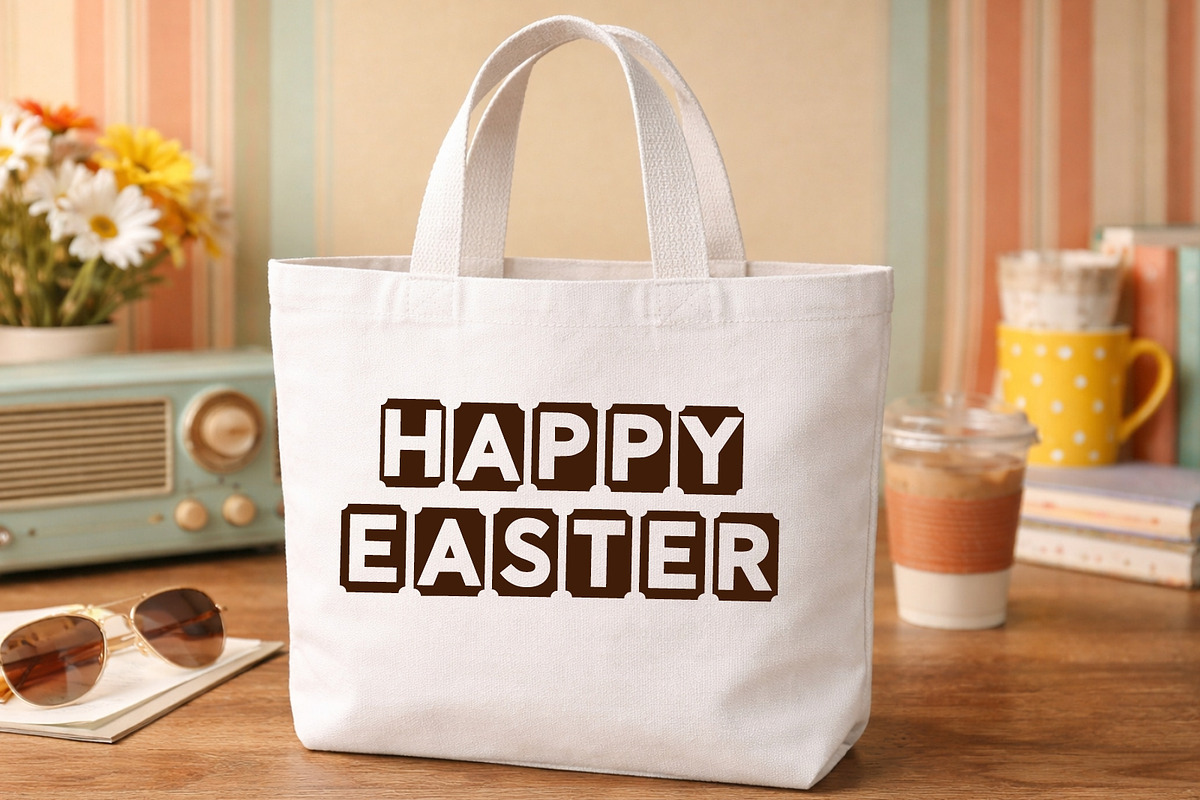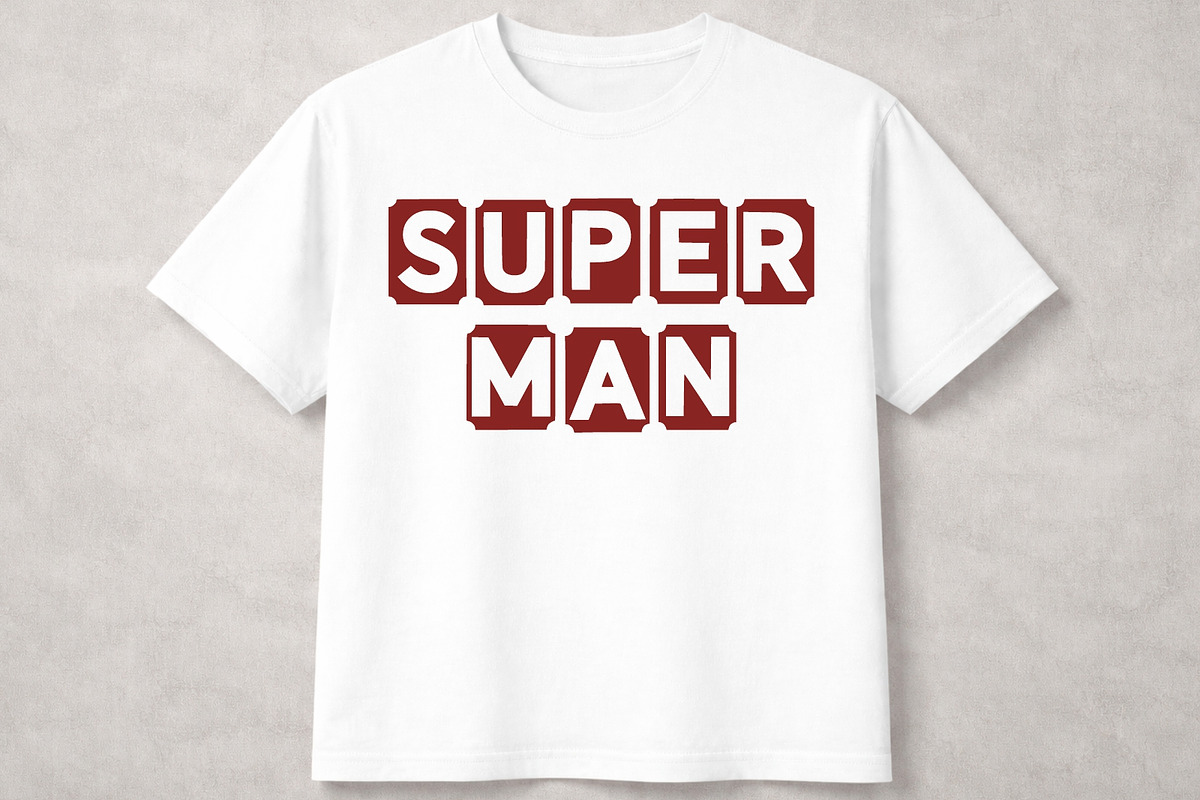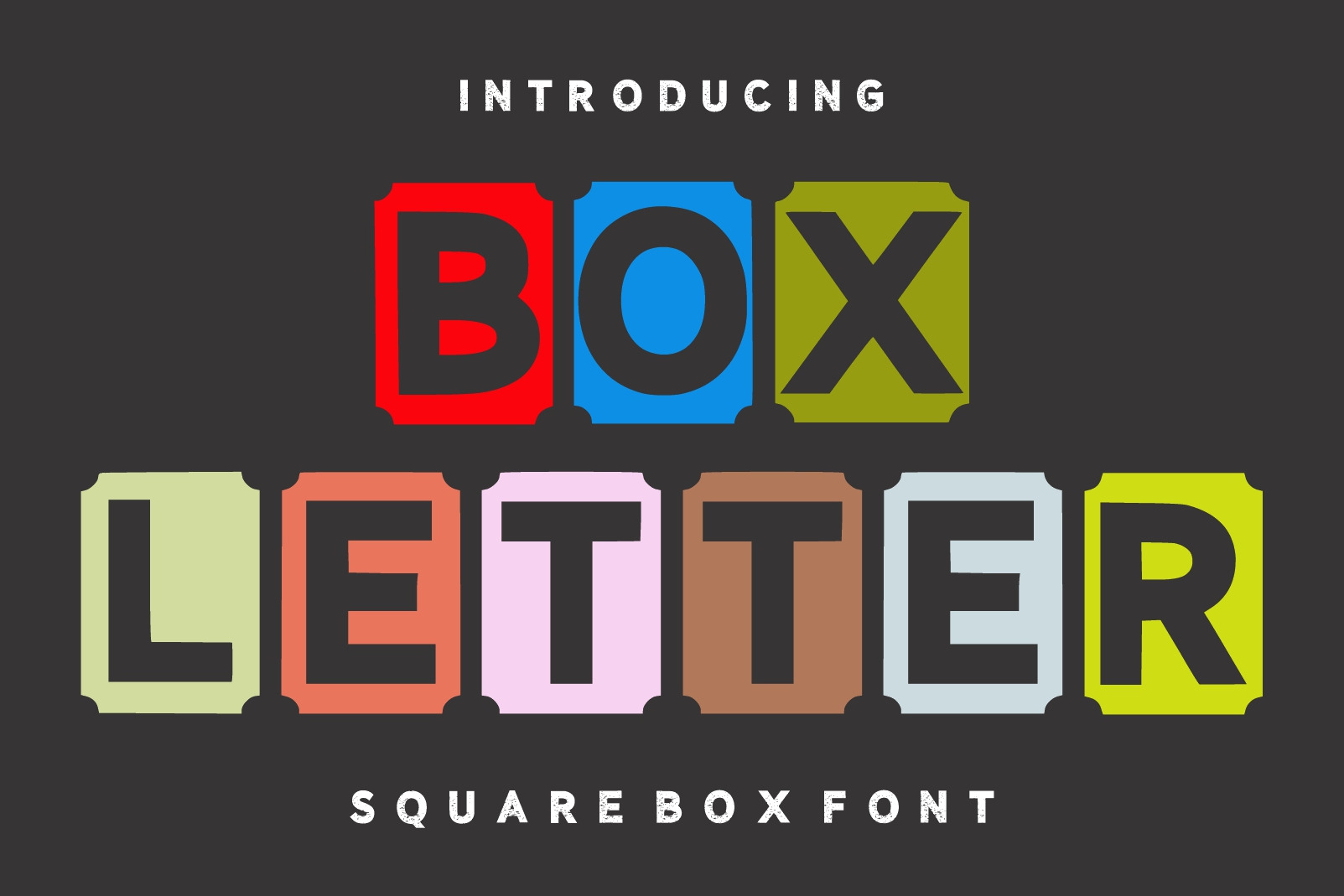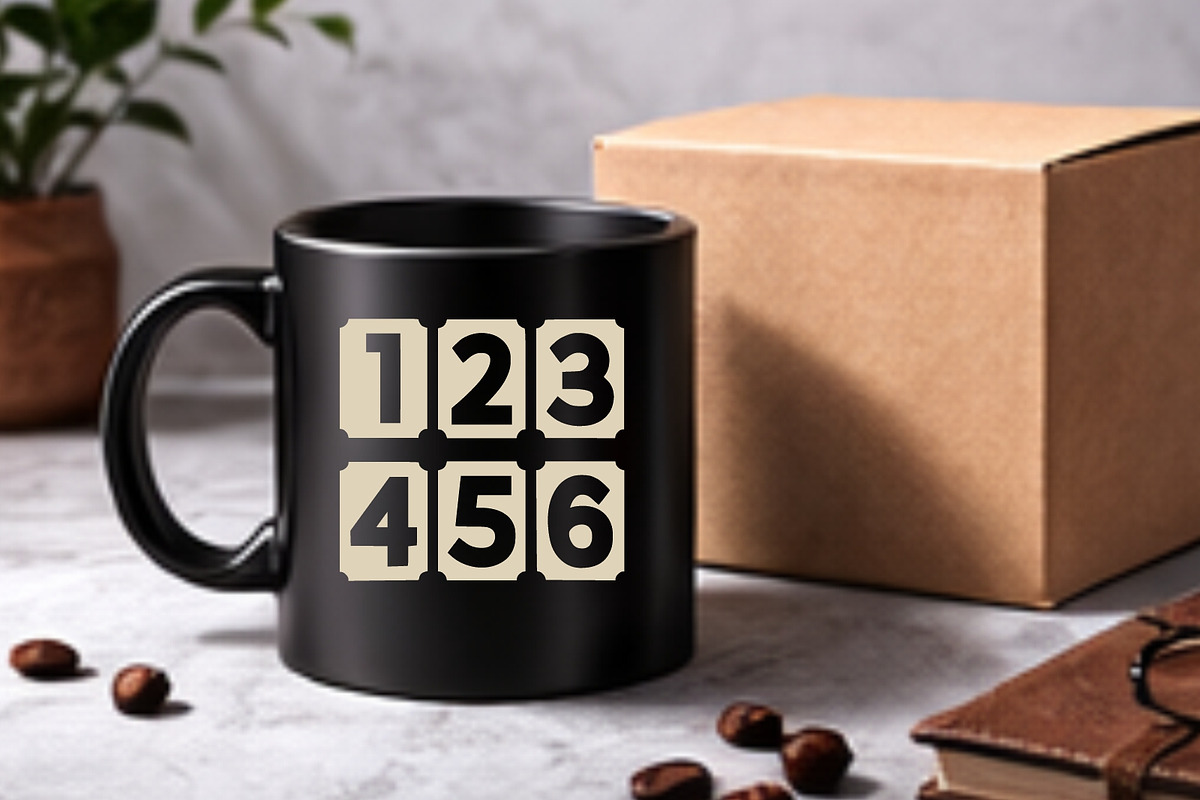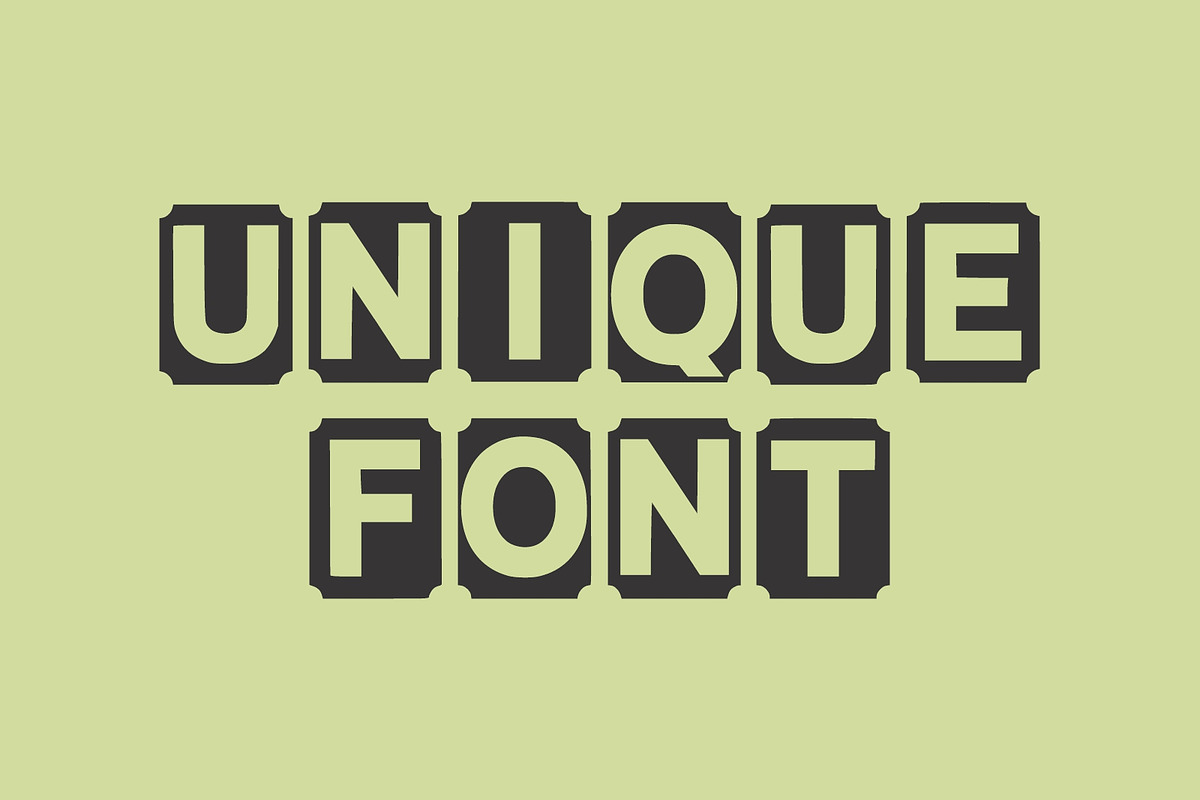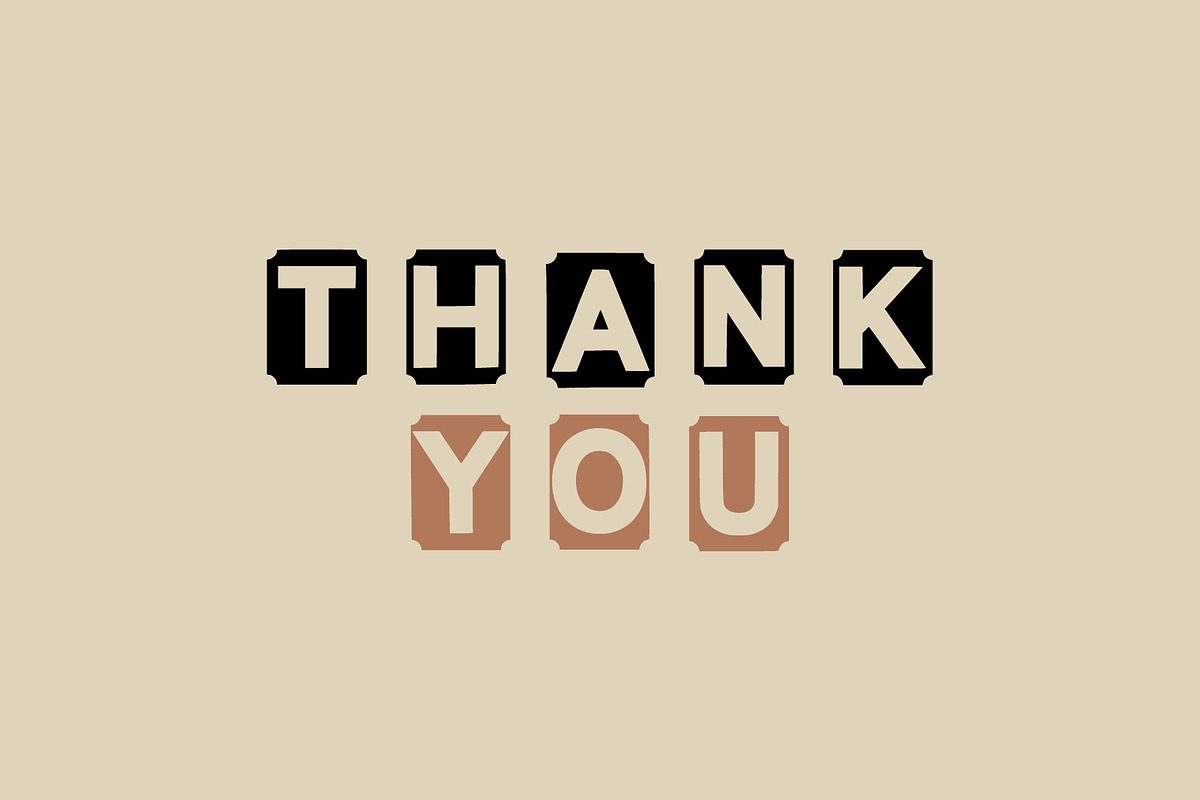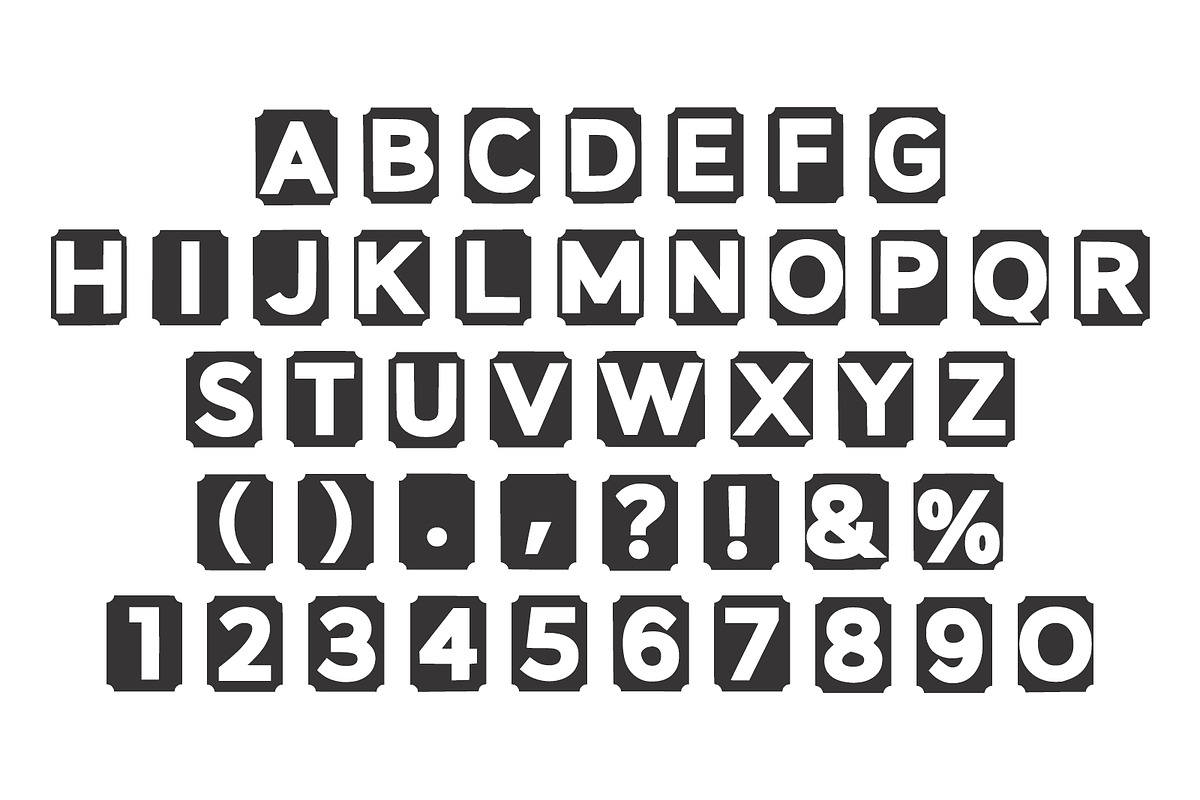
Box Letter Font
Box Letter is a fun and eye-catching square display font inspired by colorful alphabet blocks and playful educational toys. With its bold geometric shape and clean letterforms, this font is perfect for creating cheerful and modern designs that instantly grab attention. The boxed character style makes it ideal for children's branding, educational materials, packaging, posters, logos, book covers, classroom decorations, games, and creative craft projects.
Whether you're designing playful product packaging, birthday invitations, toy branding, social media graphics, or Cricut and Silhouette cutting projects, Box Letter delivers a friendly and memorable look. Its bold appearance ensures excellent readability while adding a unique, modern, and colorful personality to every design.